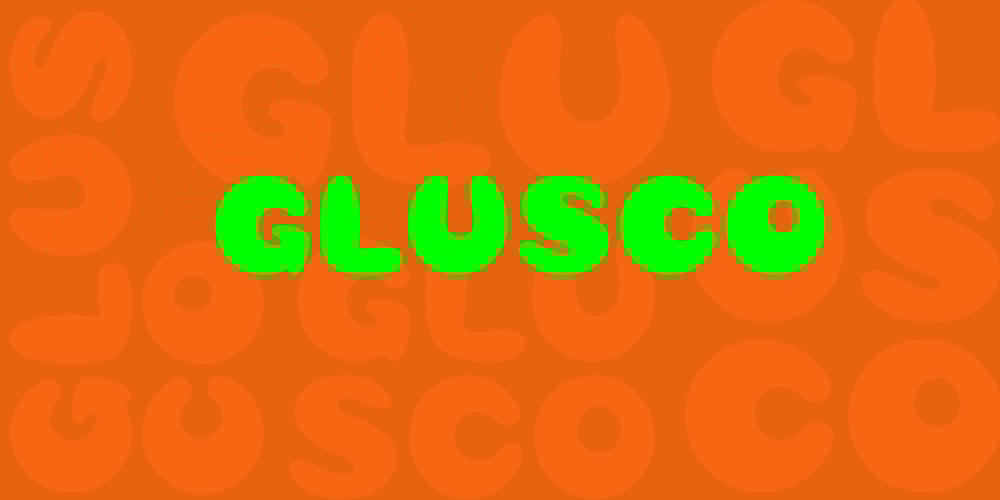
Glusco Font Family was designed by Volodymyr Berla and published by VladB. Glusco contains 3 styles and family package options. Glusco is a fun cartoon suns serif font, includes upper and lower case characters, Latin, Cyrillic, Latin Eastern Europe, Turkish, Baltic and other, 500+ symbols.Glusco family consists of 3 fonts: Regular, Black and Bold thickness.Glusco fonts will be useful in developing a brand, creating posters and other graphic products.